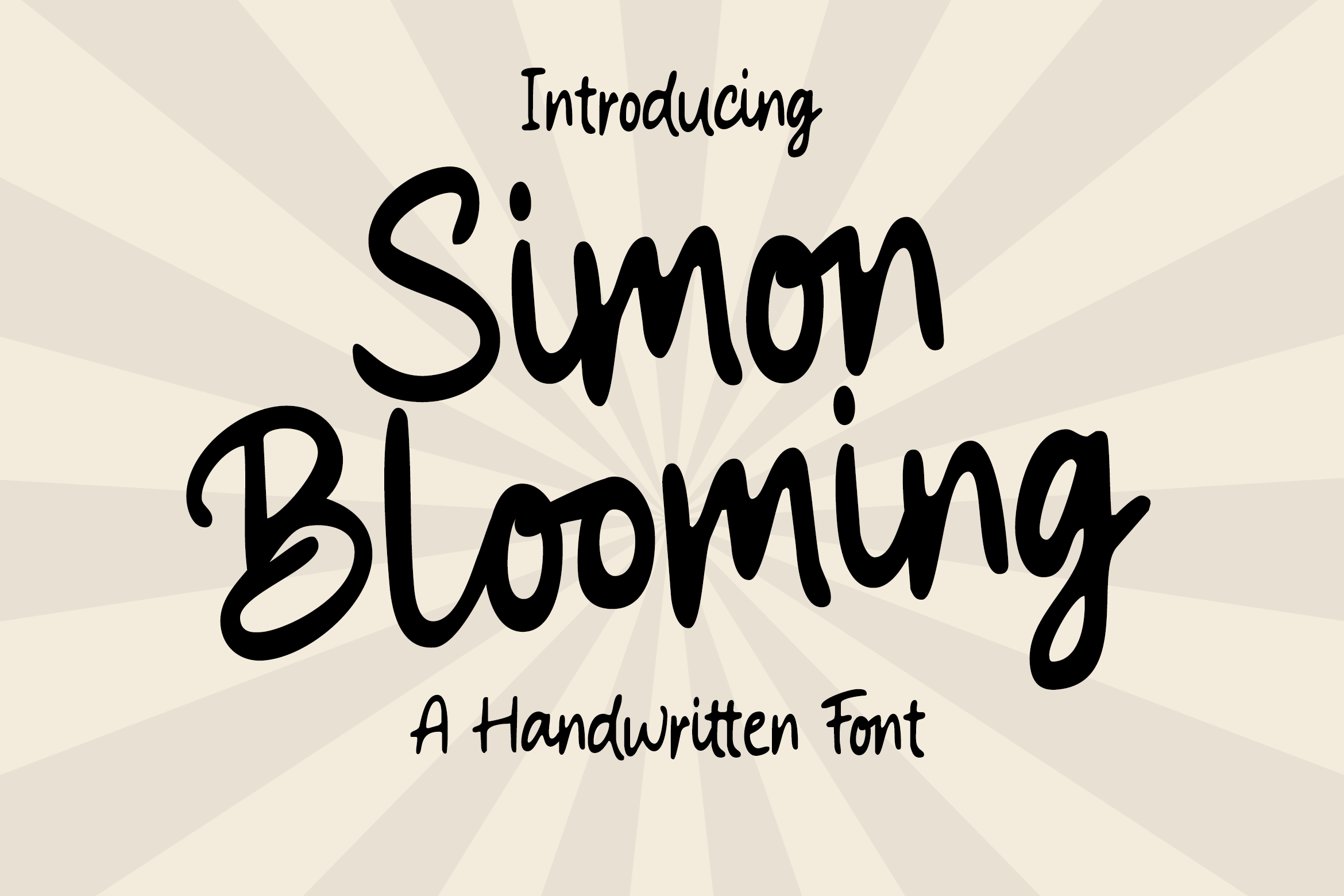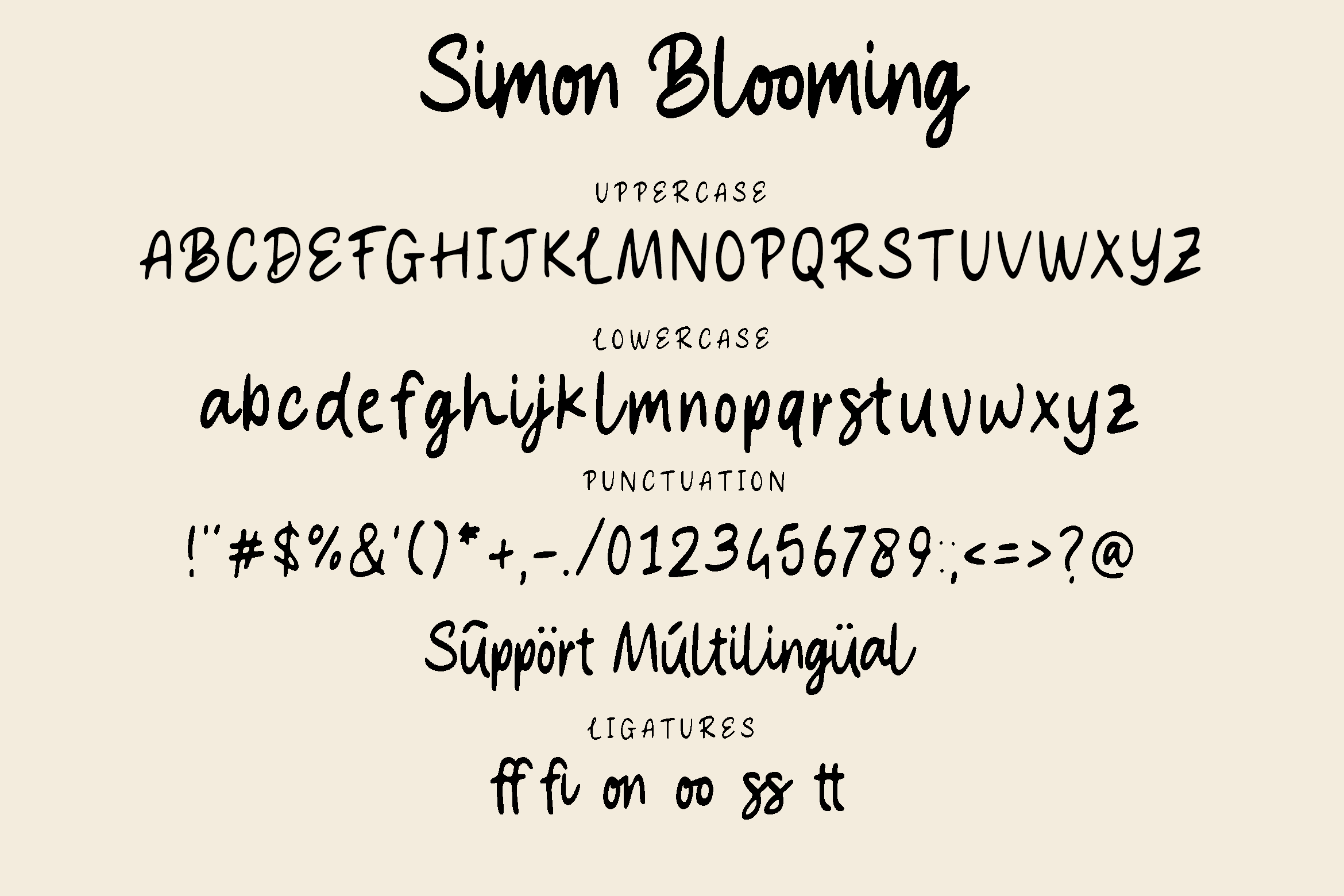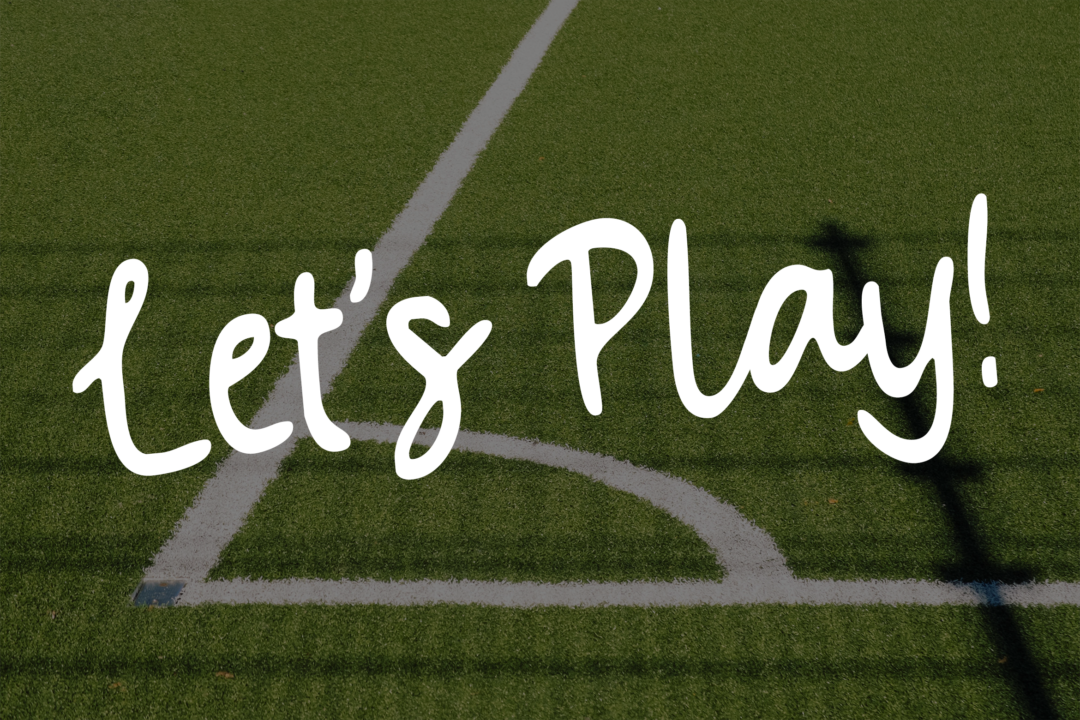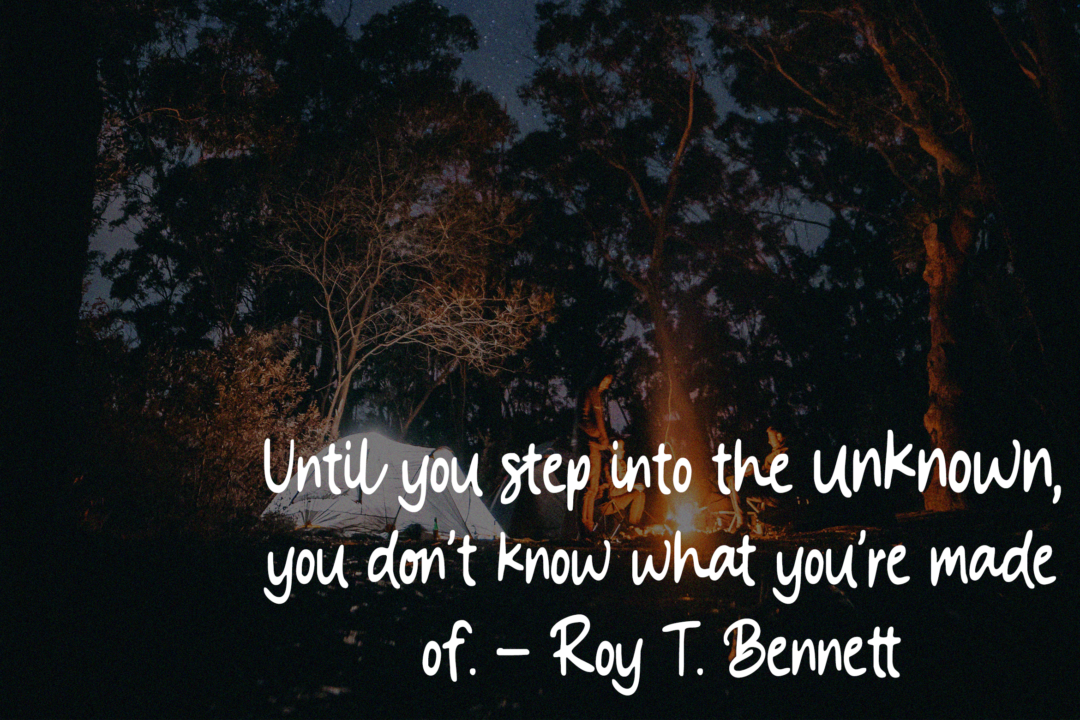
Simon Blooming is a handwritten font that is designed to imitate the look and feel of a real marker pen. It has a smooth and fluid stroke that creates a natural and organic appearance, as if the letters were drawn by hand. This font is ideal for creating a hand-lettered feel in your designs, such as posters, or social media graphics.
Simon Blooming